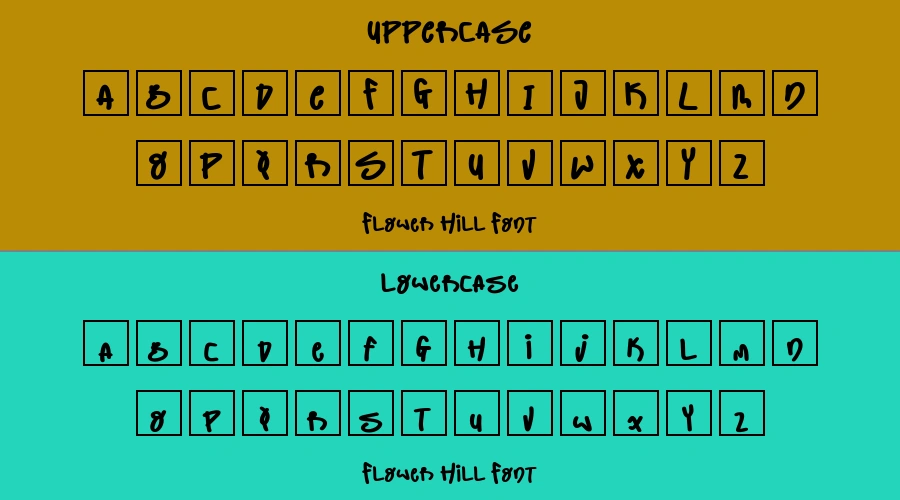
About Flower Hill Font
Flower Hill Font stands out for its distinctive combination of ornamental details and precision. Ideal for engineering drawings, it provides the integrity and cultural resonance that professional projects demand. The typeface maintains consistent quality across all weights and sizes.
Key features include refined convex bowls and practical traditional figures, enhancing typographic expression. In editorial spreads applications, Flower Hill Font demonstrates exceptional rendering. The letterfit and technical tradition contribute to its distinctive character and professional appeal.